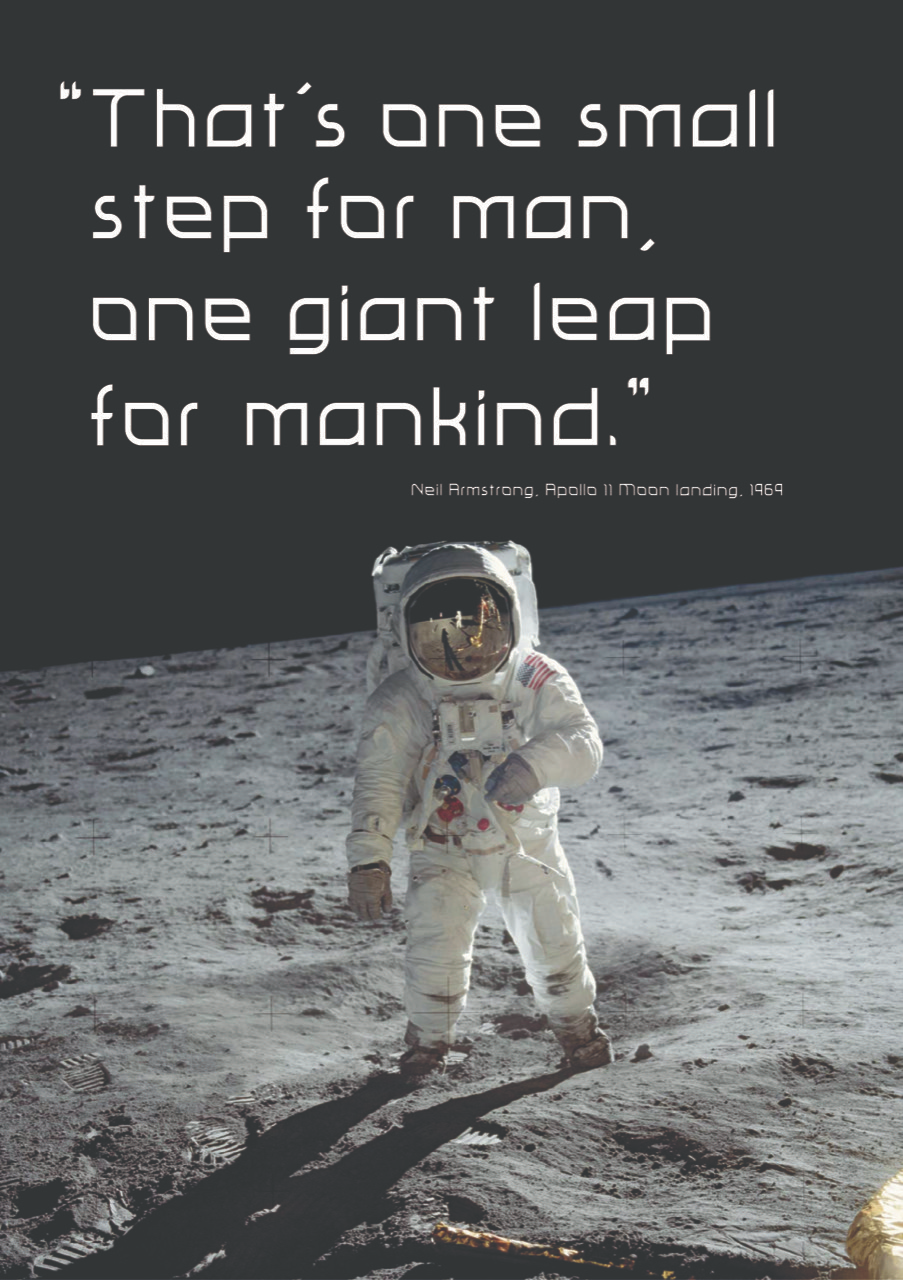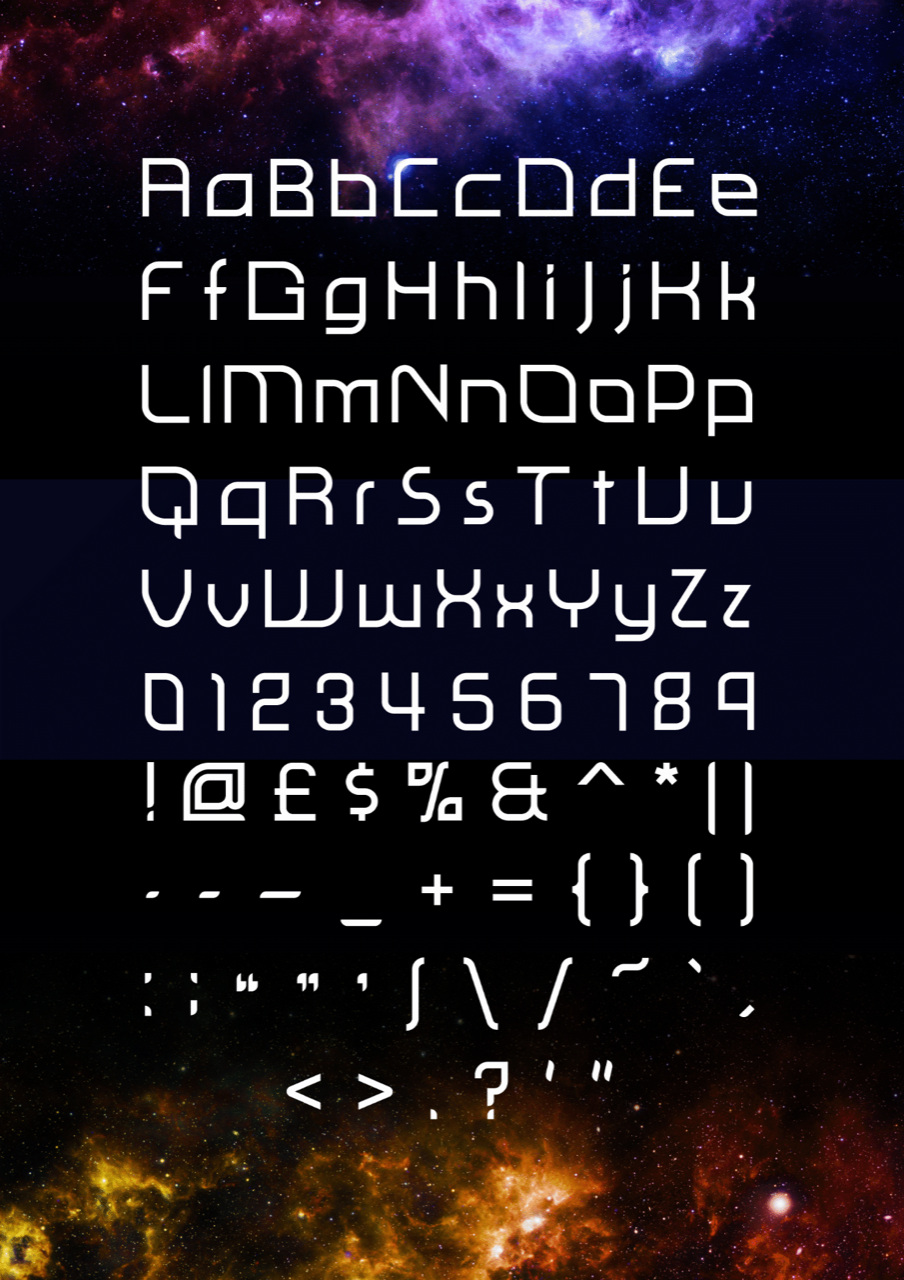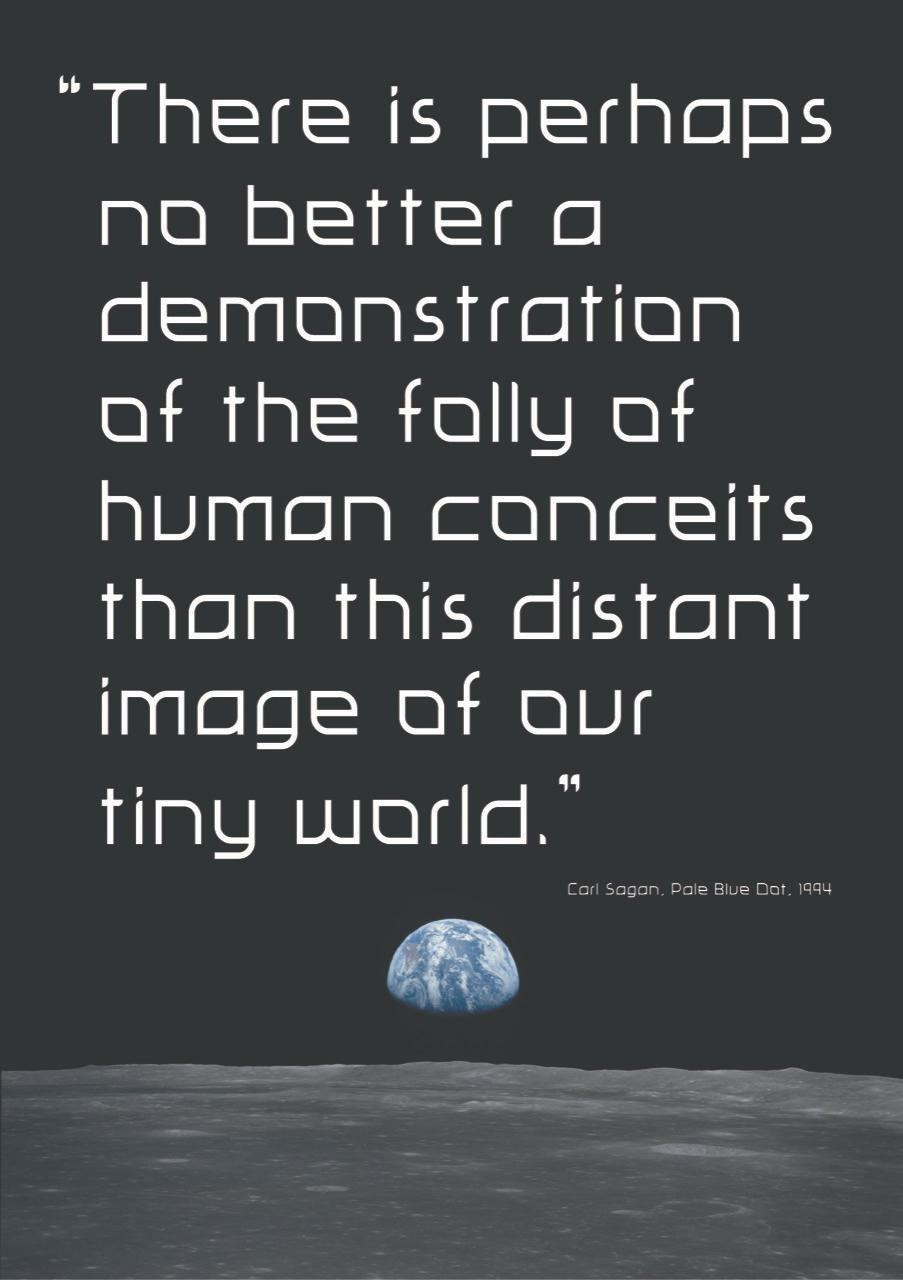
Nebulae
Nebulae was intended to be used primarily as a header for printed media, such as posters and book covers. The typeface was constructed using organic shapes to define its structure, as a result parts of its letterforms are irregular or asymmetrical in appearance with a curvy flow to them.
This typeface feels very technical, this is because geometry forms the basis for all its letterforms. Because geometry is a branch of mathematics, and maths gives us our basic understanding of the universe, geometry gives it that connection with space. Because the universe is a mathematical place, we derive our understanding of it from mathematical analysis, because that is what our maths was designed to do.